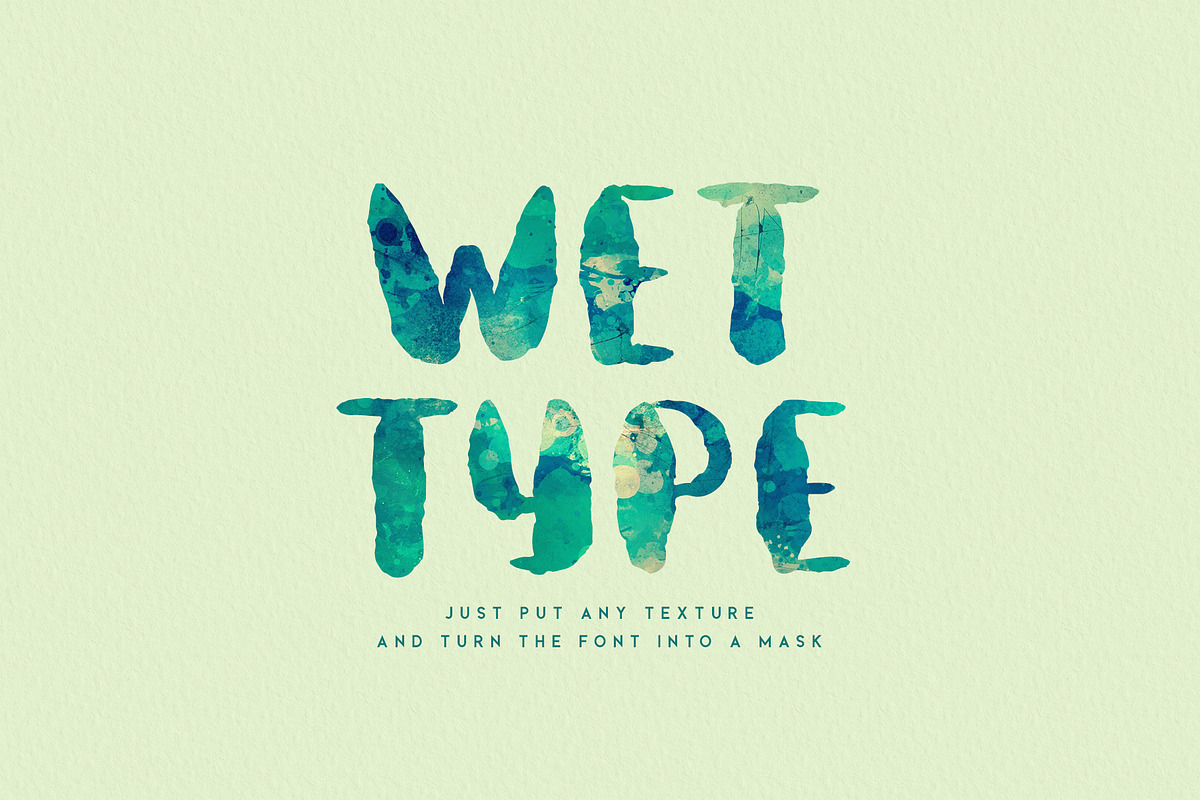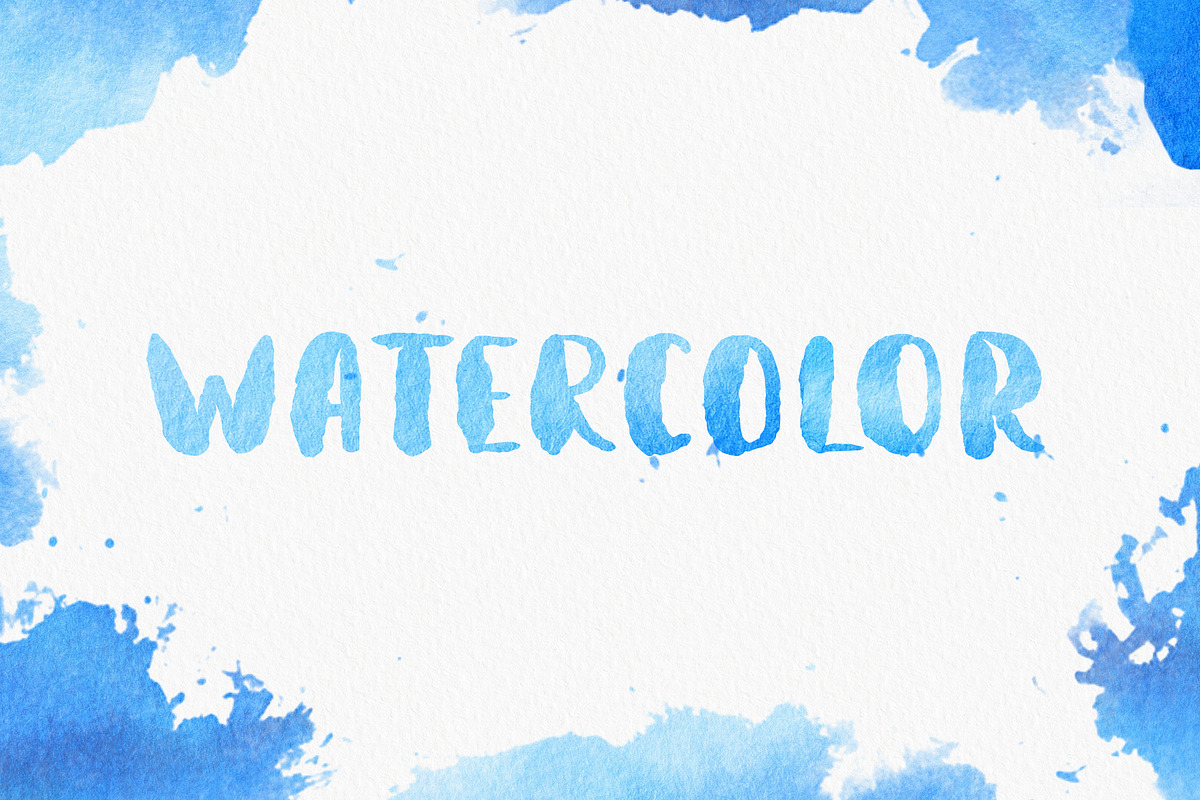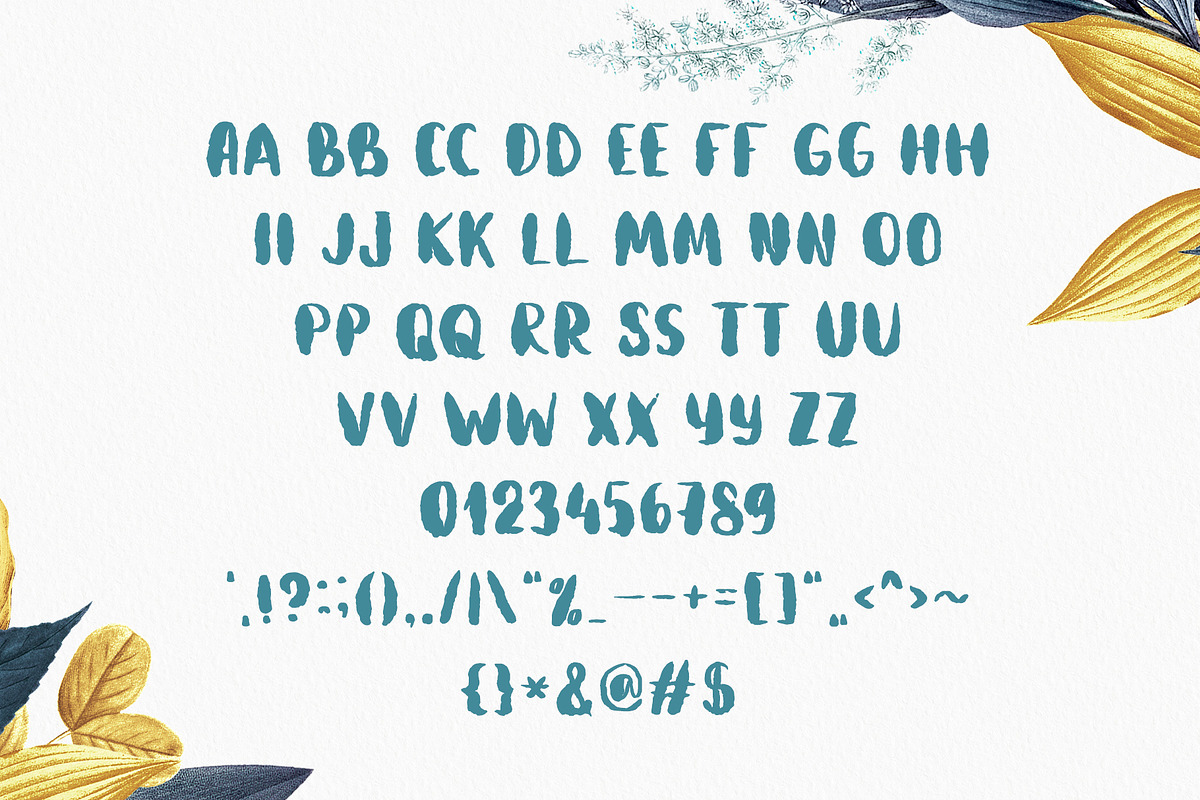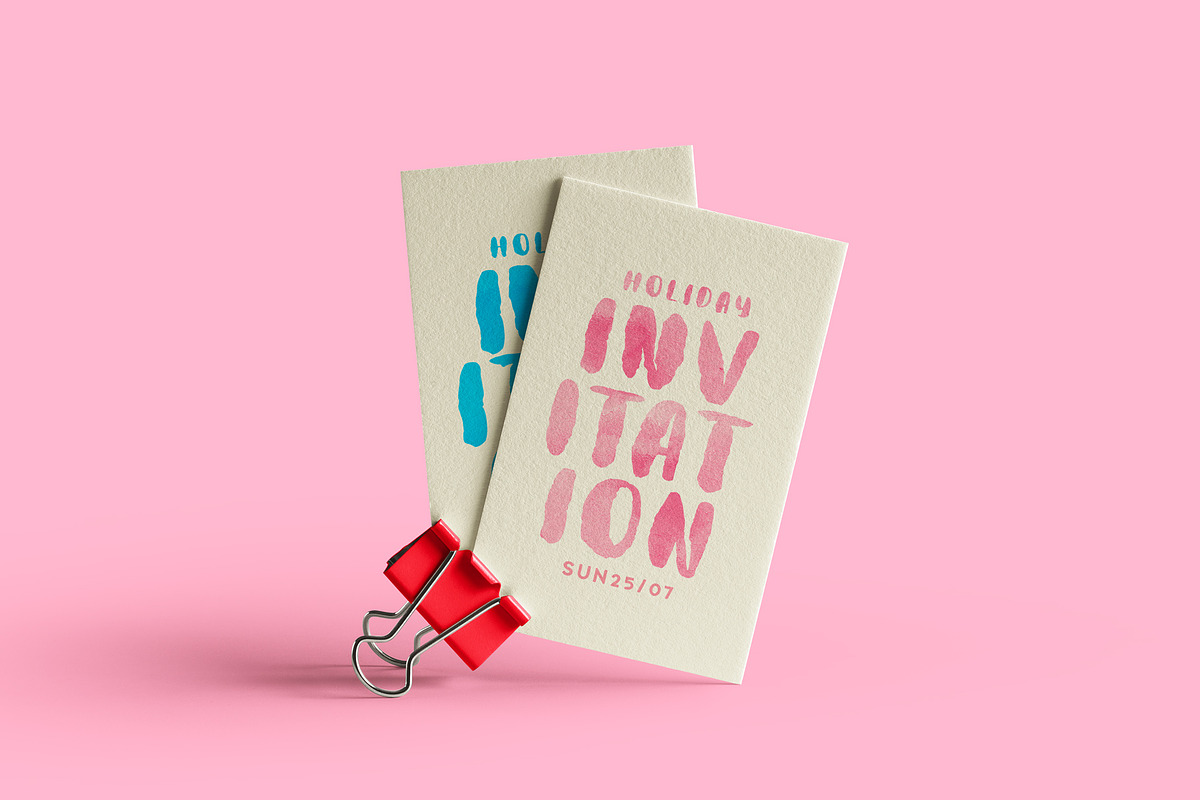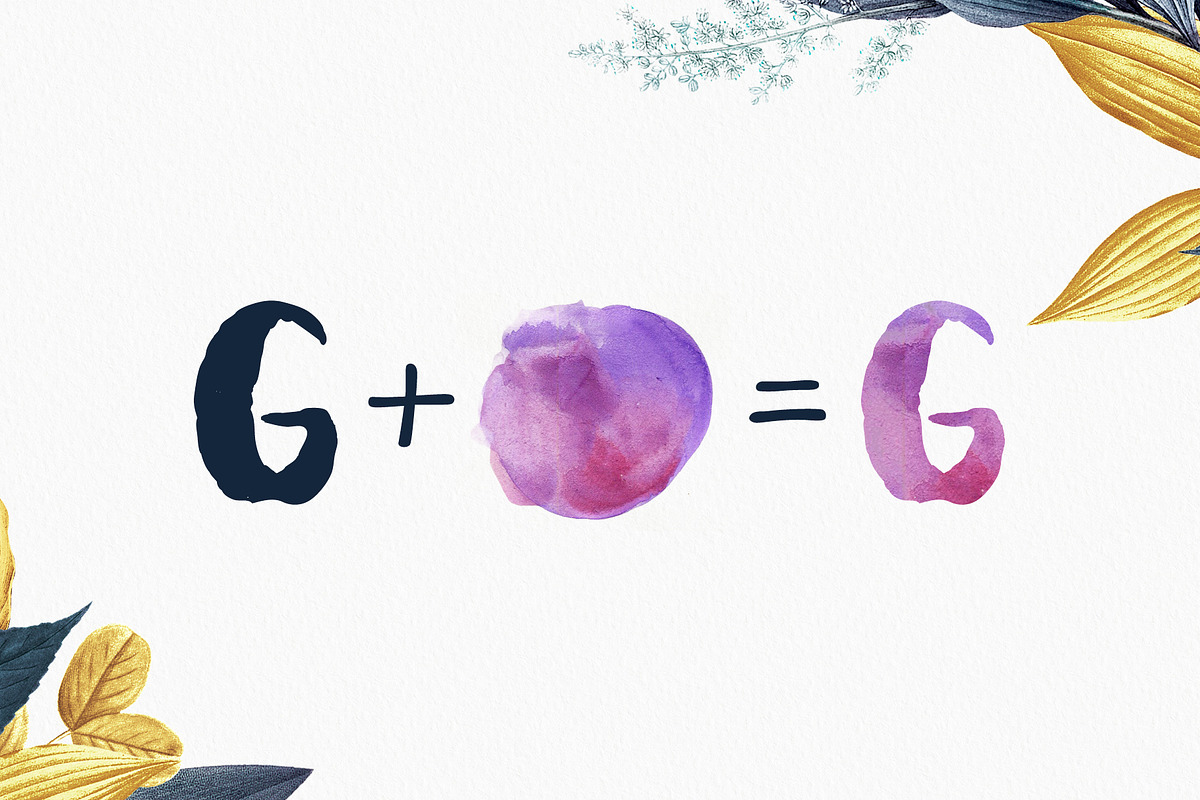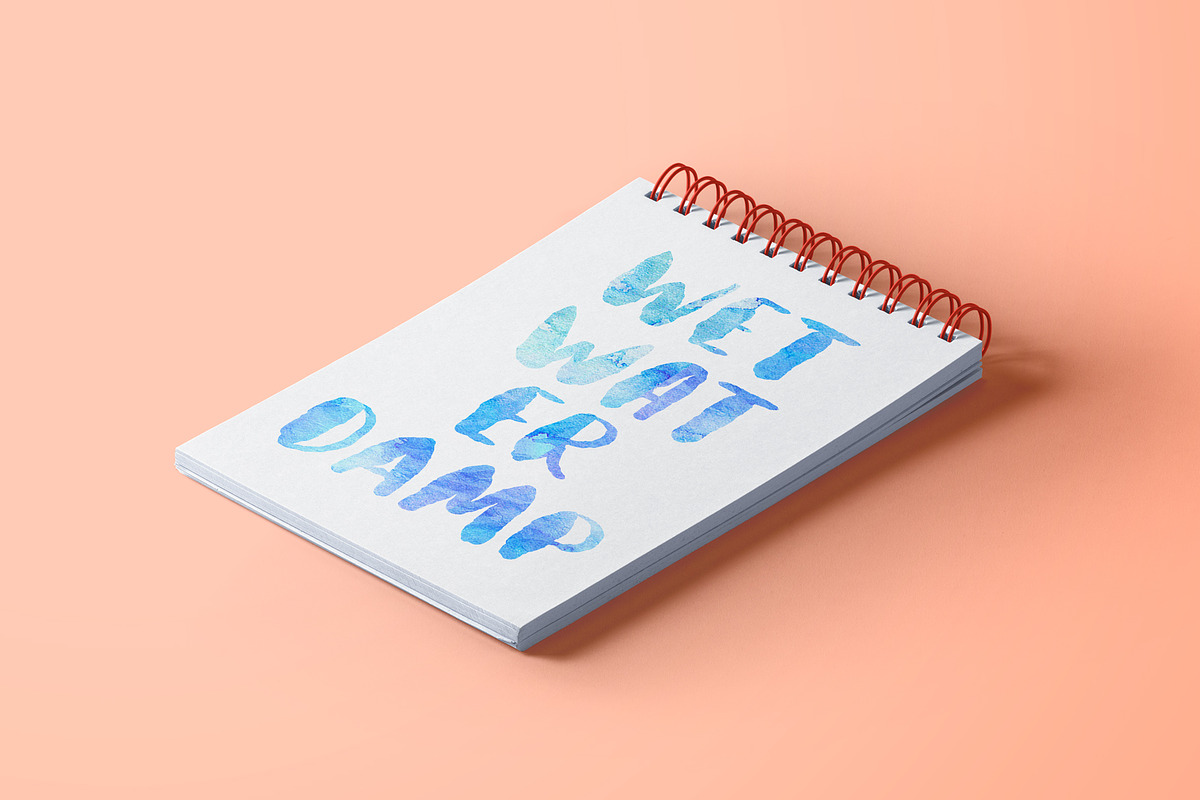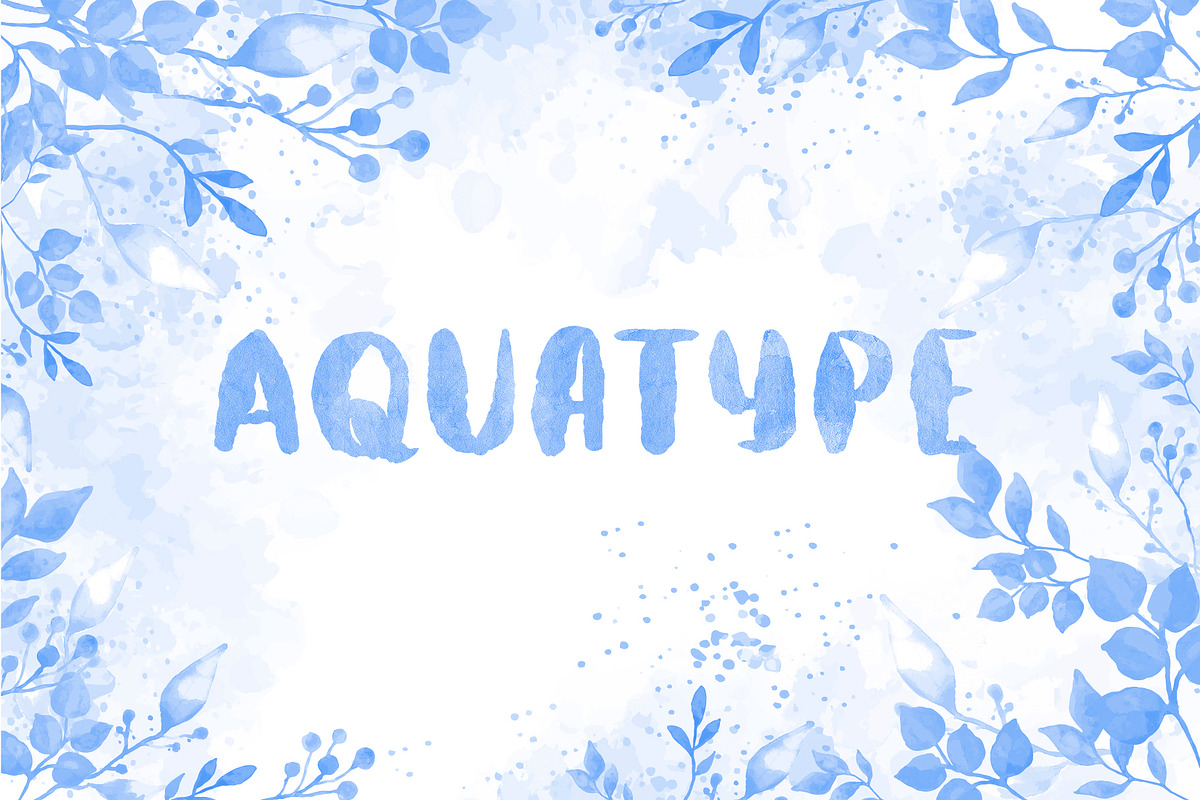
Aquatype Display Watercolor font
Aquatype. Display Watercolor font.
Aquatype - original font in Watercolor Sans Serif style. Easy intentional negligence of letters looks as if the letters have slightly spread on the paper from paint and water - like real watercolor letters. Combine the font with watercolor stains, textures, backgrounds - to achieve the most natural effect.
Alternative ligatures for capital letters are located on the lowercase letters, You can easily diversify the text and get rid of visually repeated letters in words.
- UPPERCASE letters
- Lowercase letters it is a alternates for uppercase letters
- Numbers & basic Punctuation
- Handwriting Display typeface
- Regular font style
- Font in Watercolor style